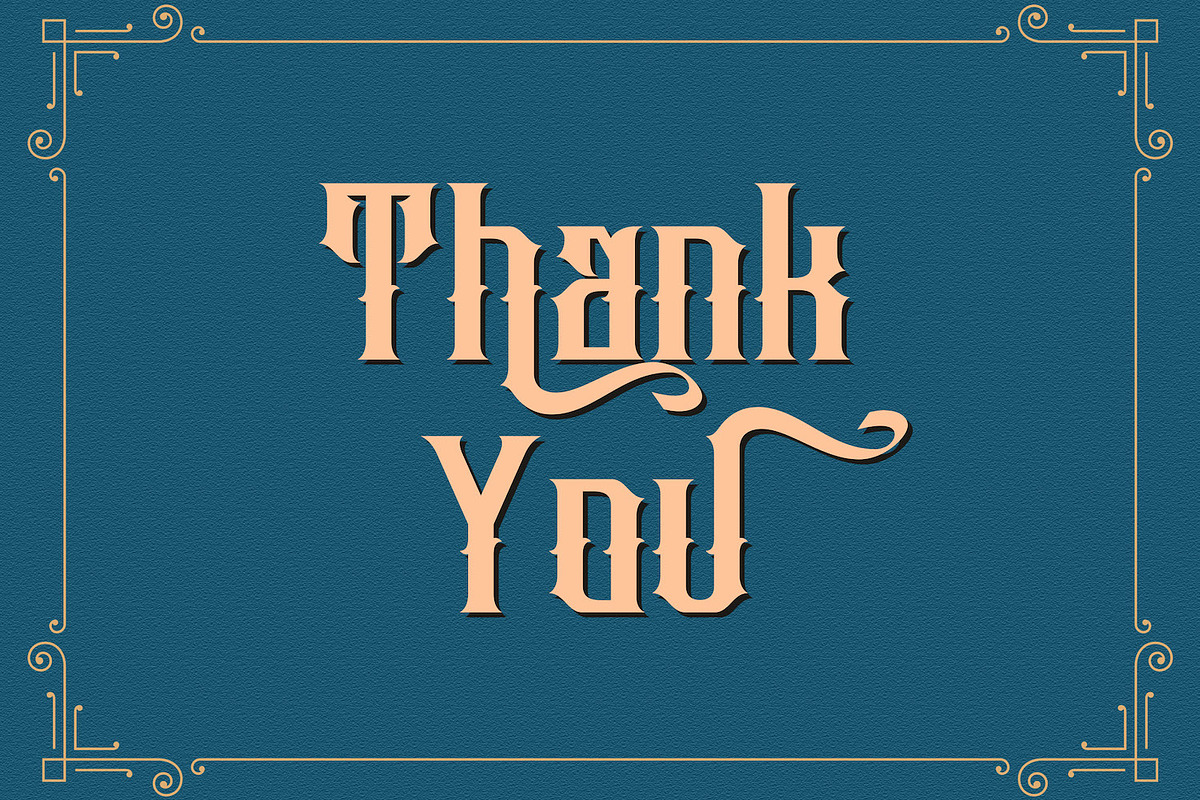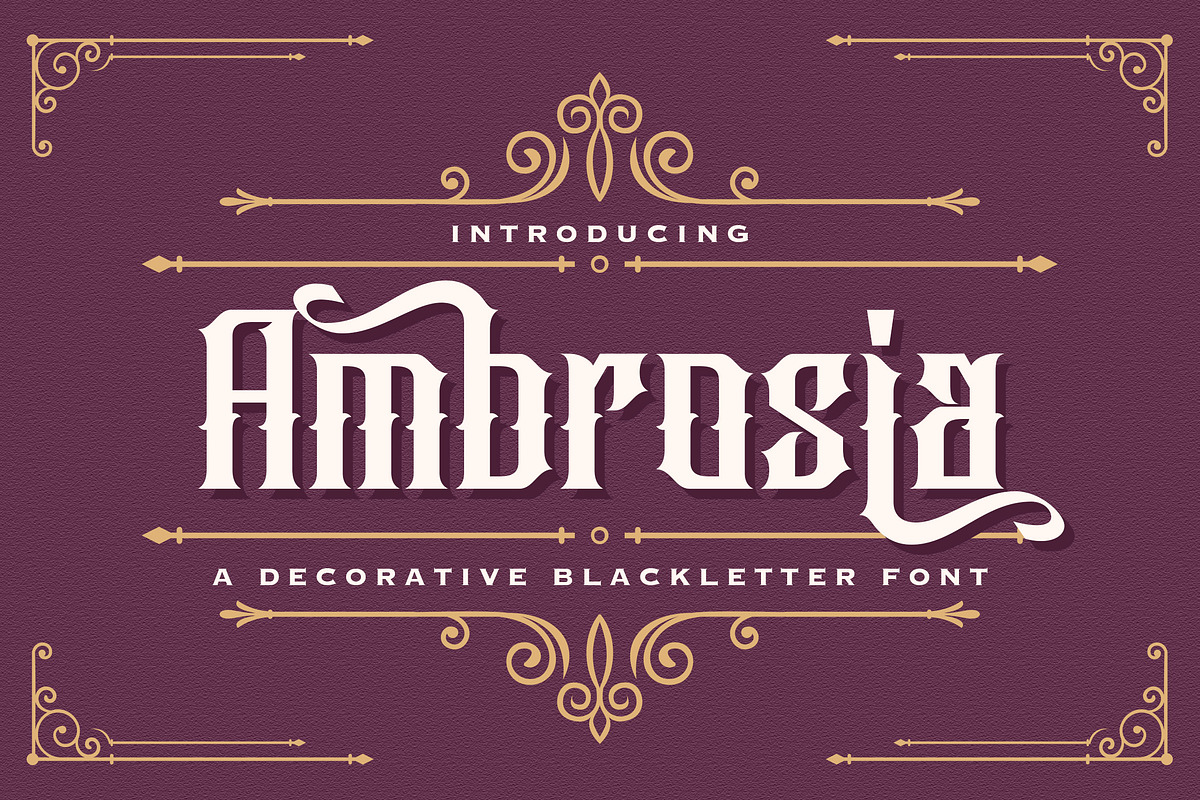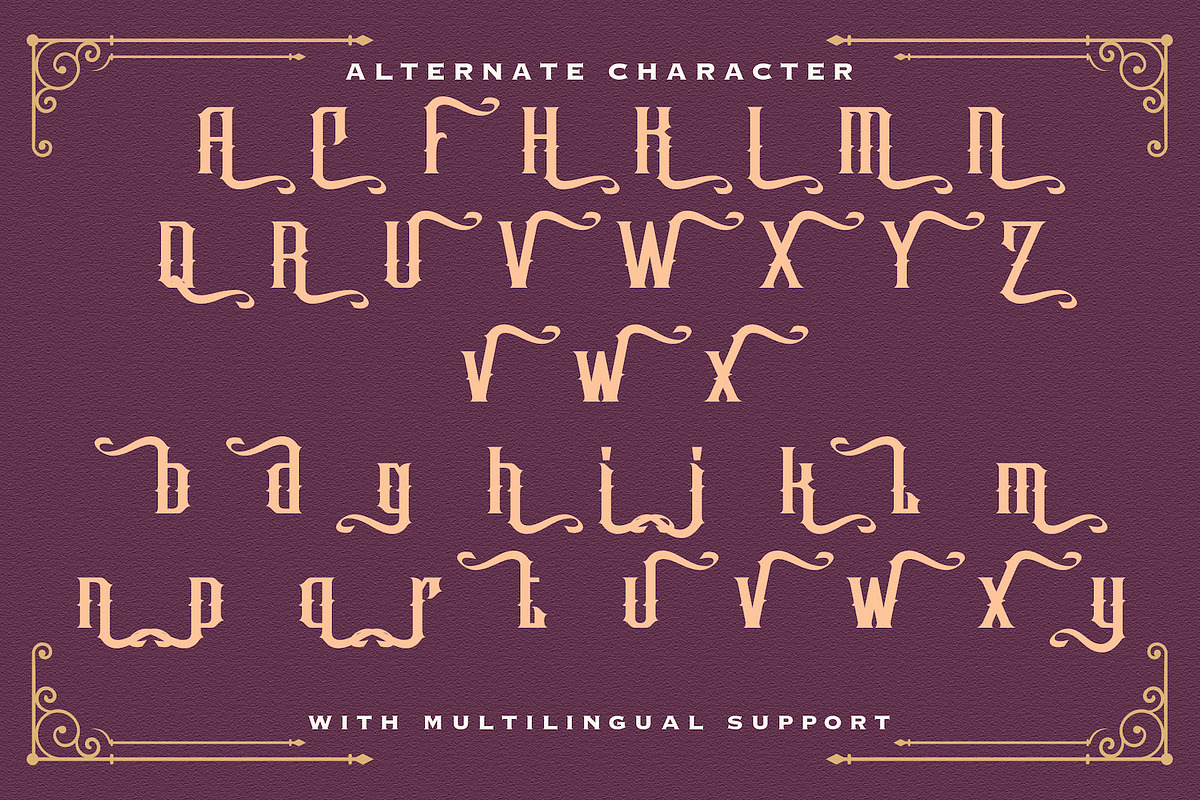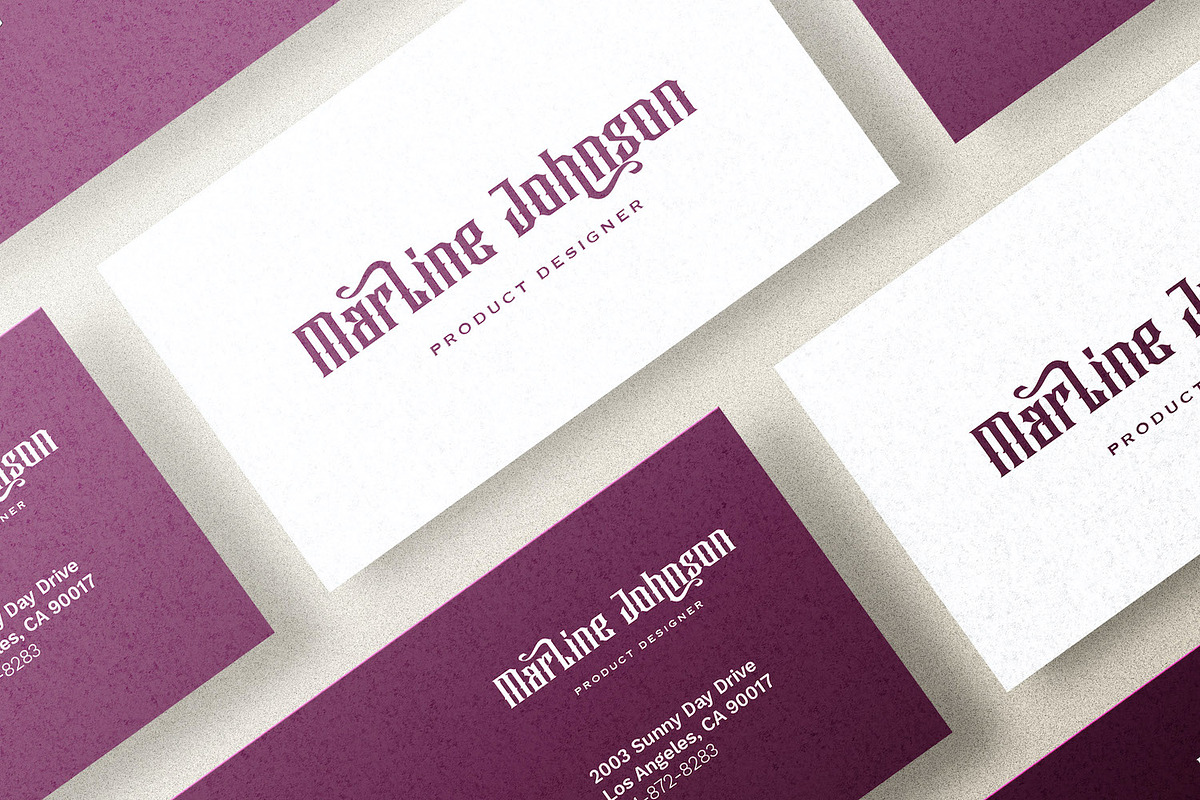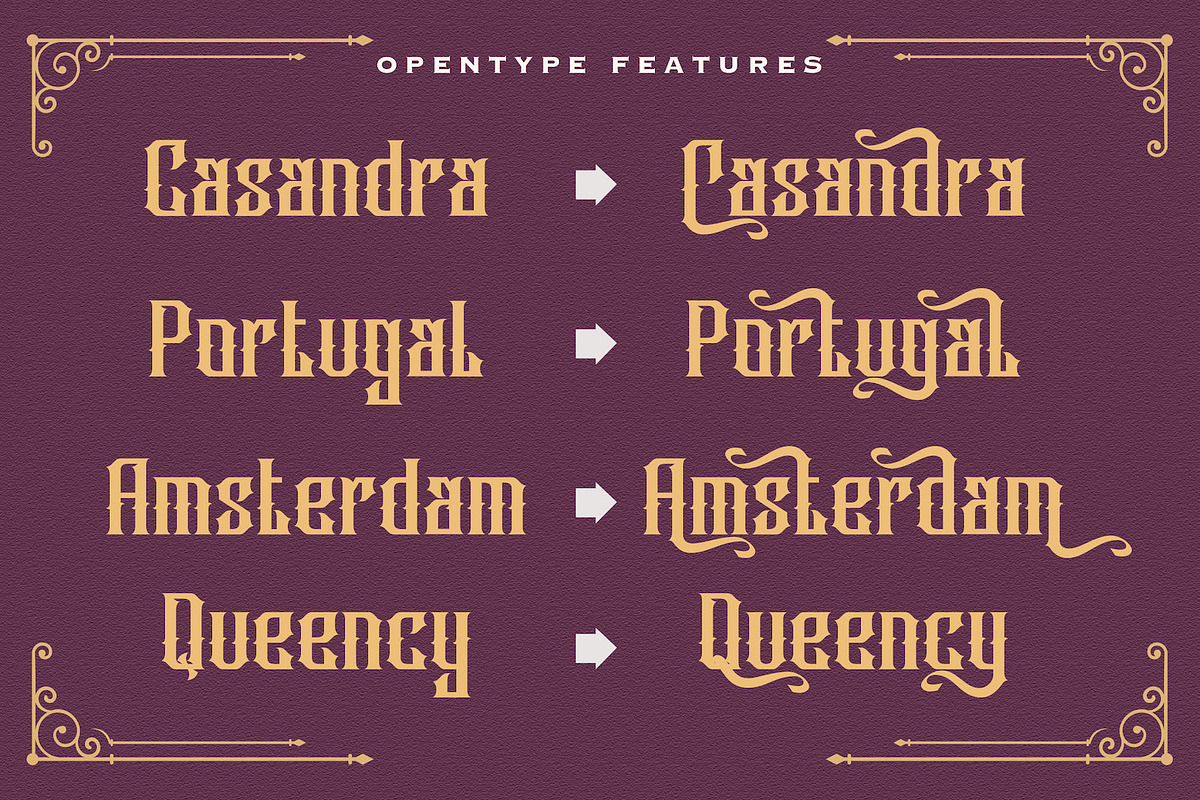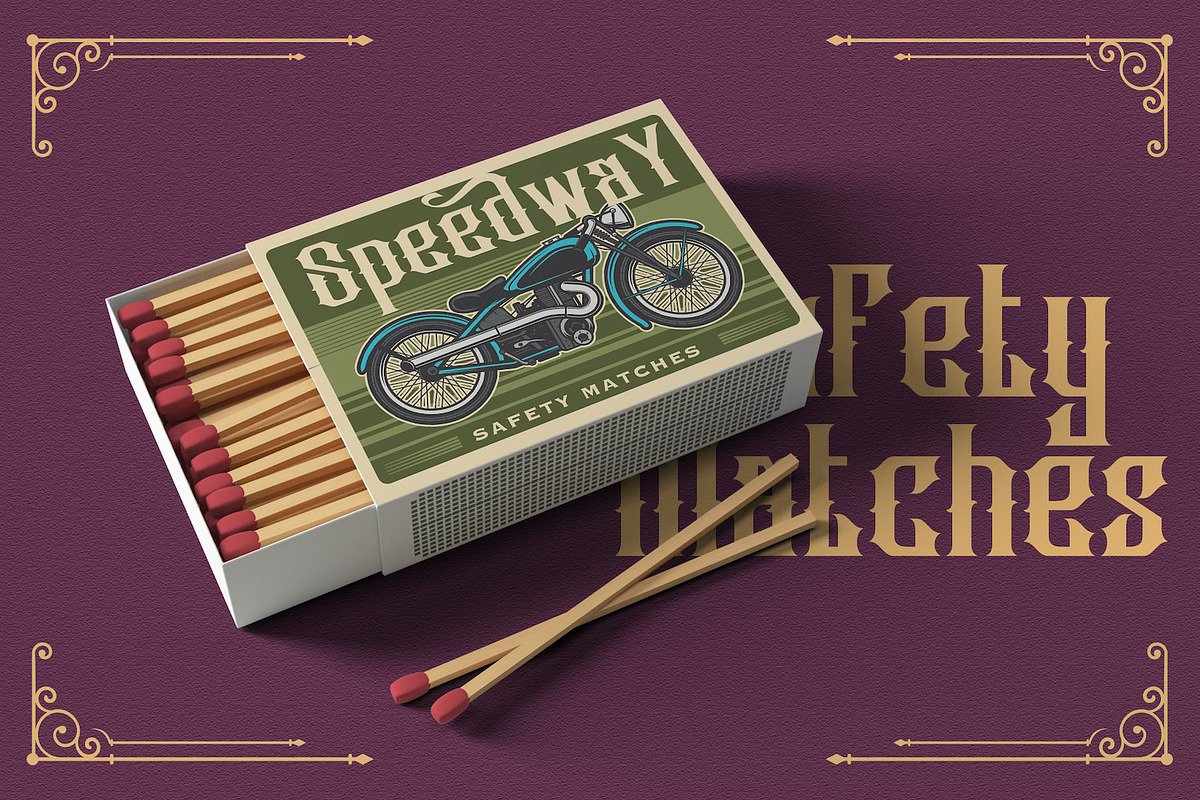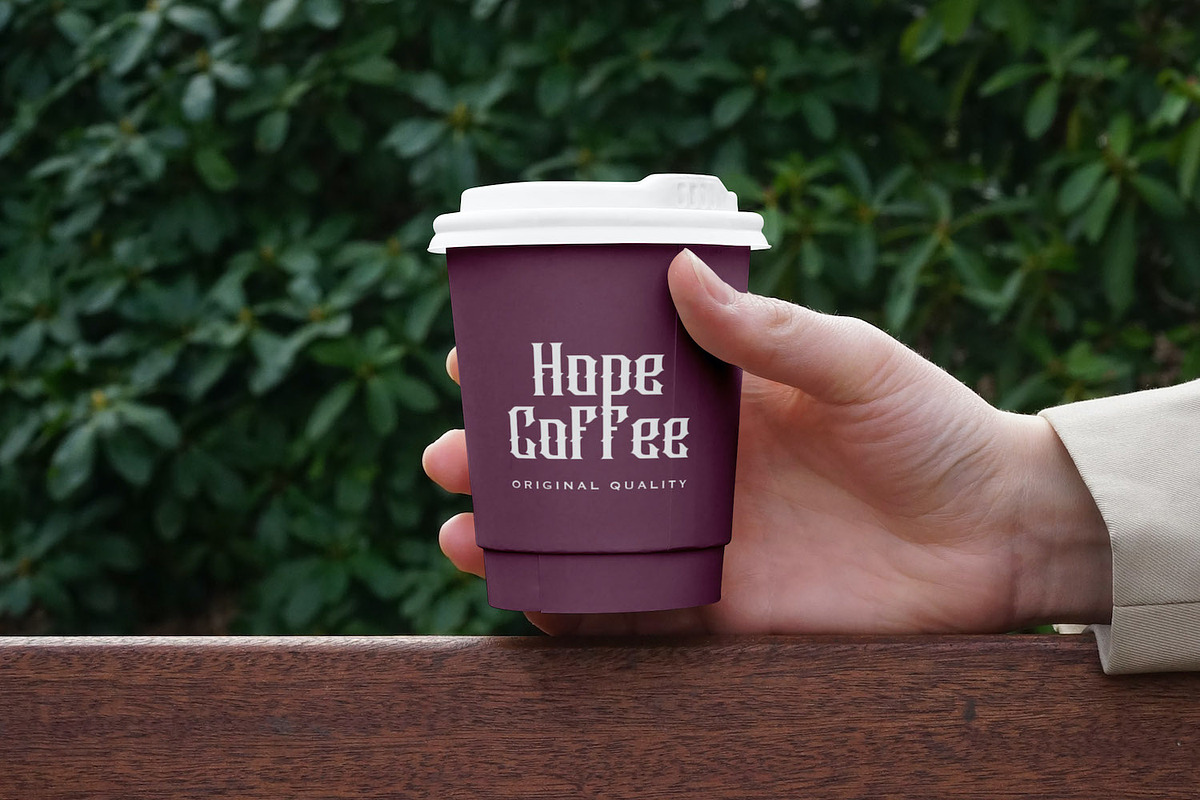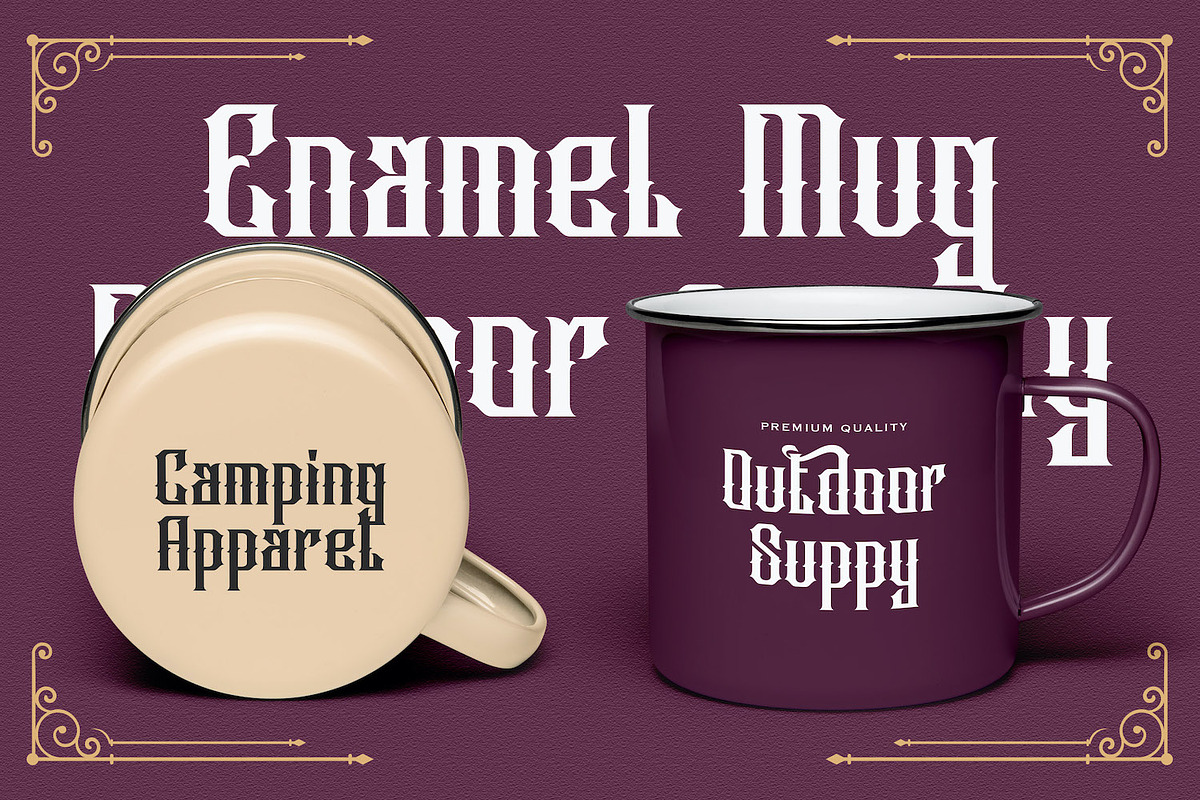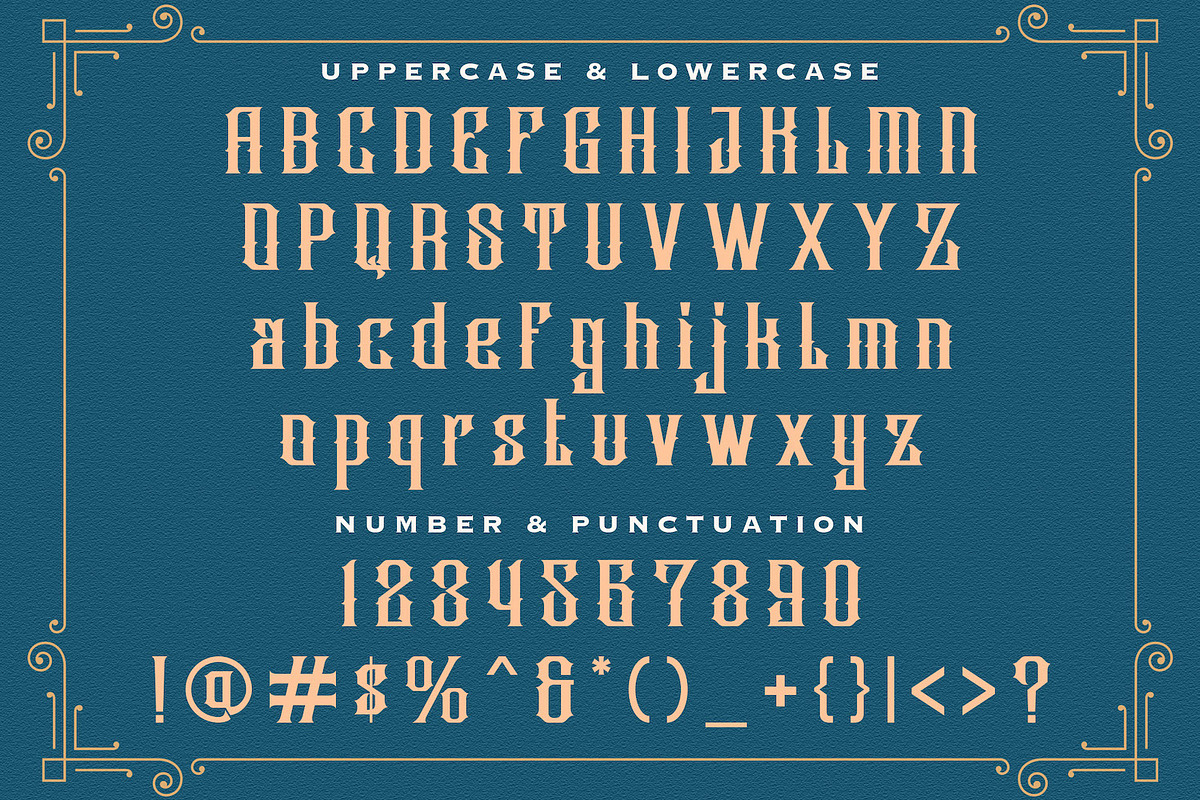
Ambrosia - Blackletter Font
Introducing Ambrosia - Blackletter Decorative Font
Ambrosia is a unique, vintage blackletter font with victorian style. This typeface will look truly outstanding in a wide range of contexts.